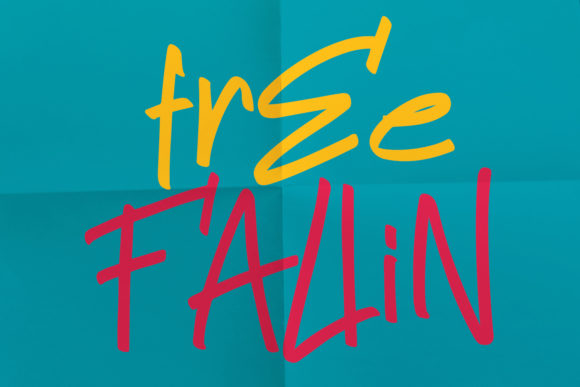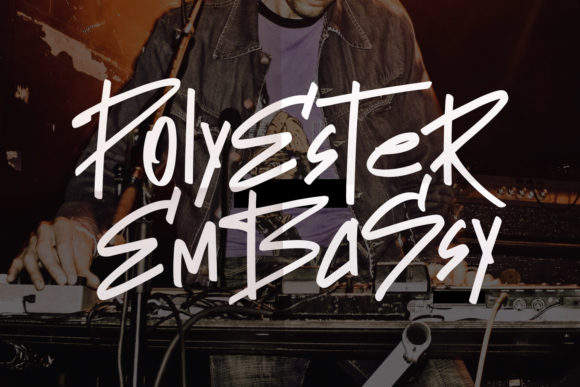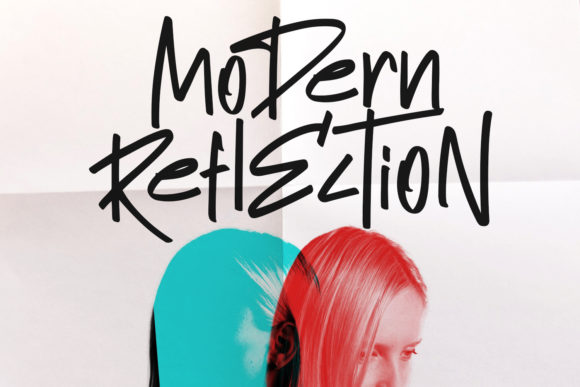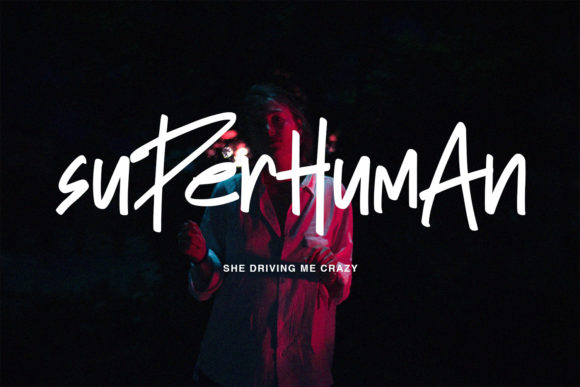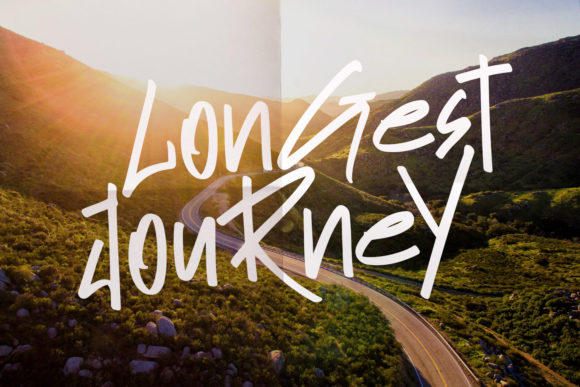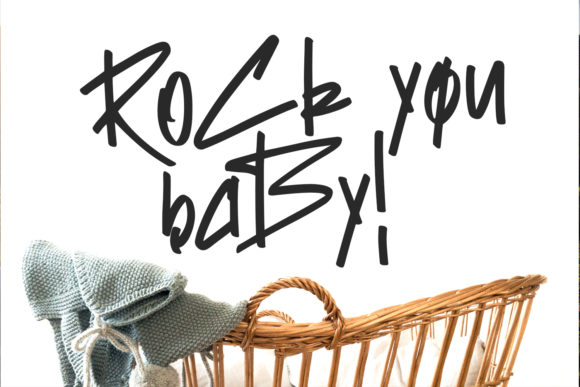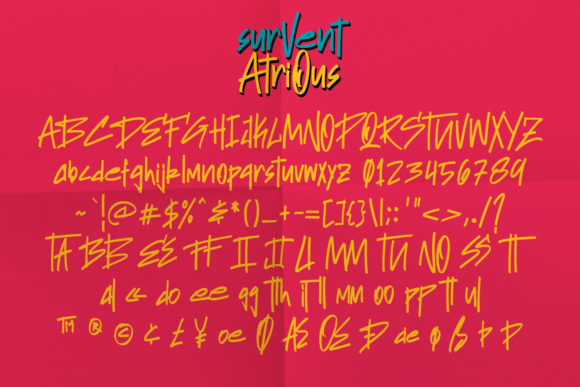
Survent Atrious Font
About Survent Atrious Font
Survent Atrious is a modern, fun handwritten font, created by using a marker pen. This font has a street style and underground look and will be the perfect fit for all of your logos, branding, social media, and crafty DIY projects.